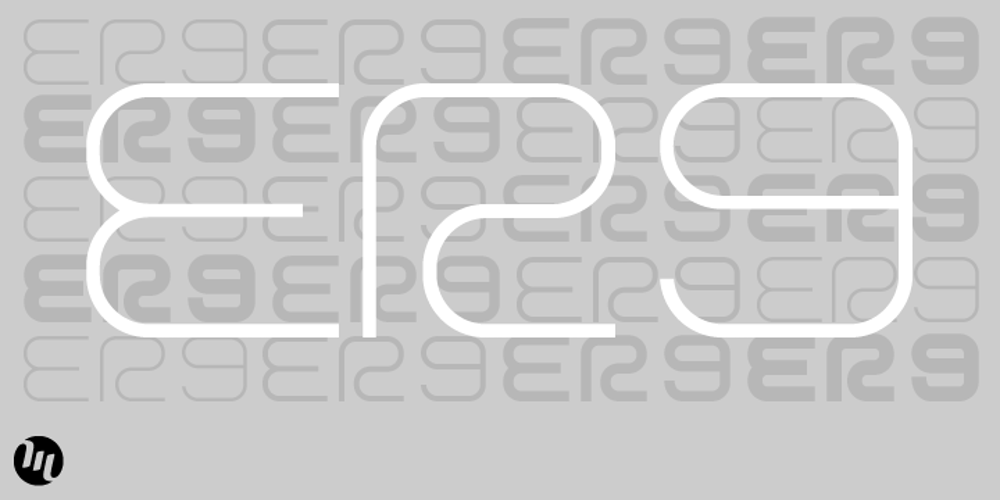
ER9 font
ER9 Font Family was designed by Matthew Aaron Desmond and published by MADType. ER9 contains 8 styles and family package options. Based on a rounded square, ER9 is a very versatile futuristic feeling typeface. Its monoline design allows for easy customization for headlines and logos.